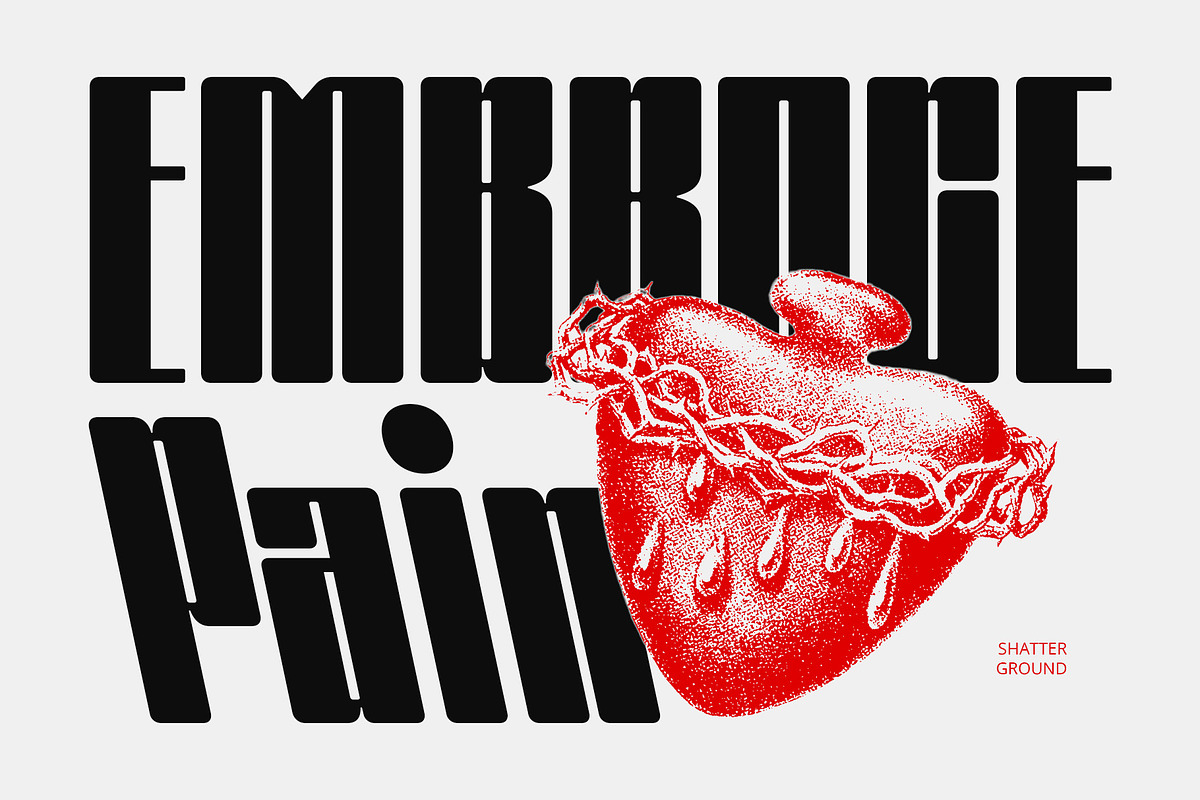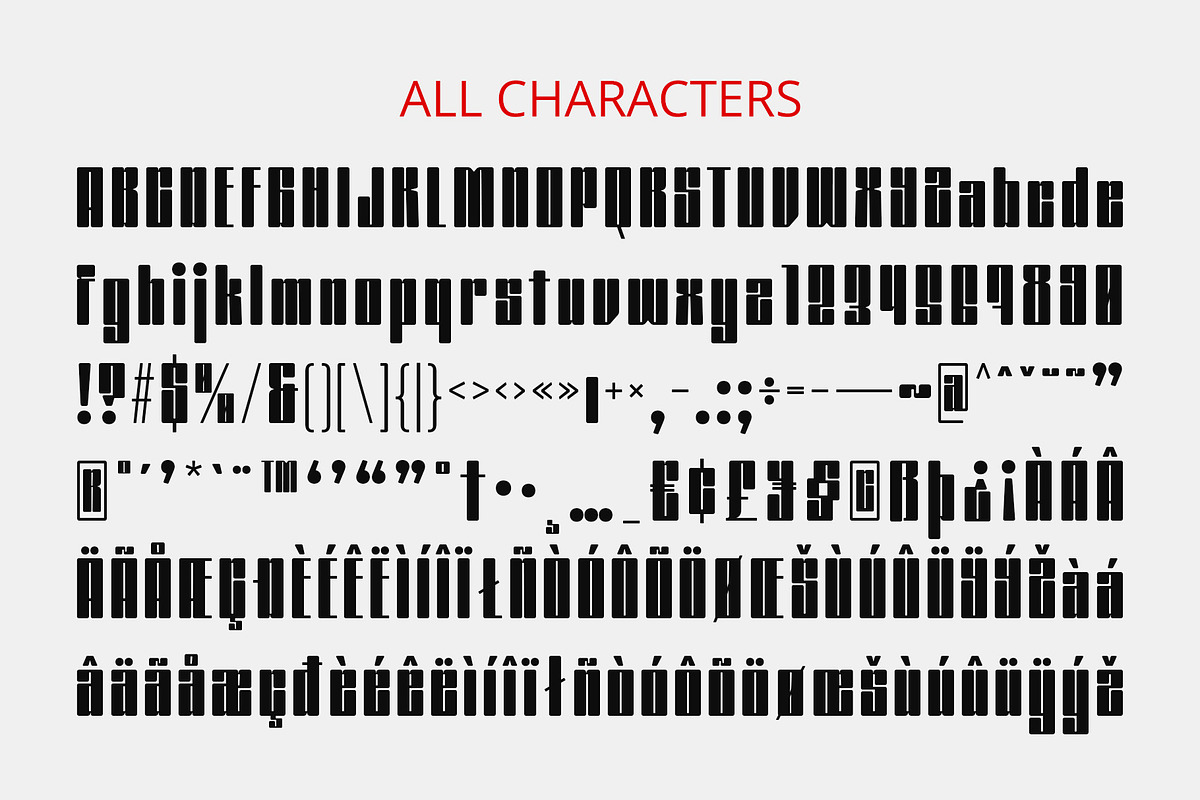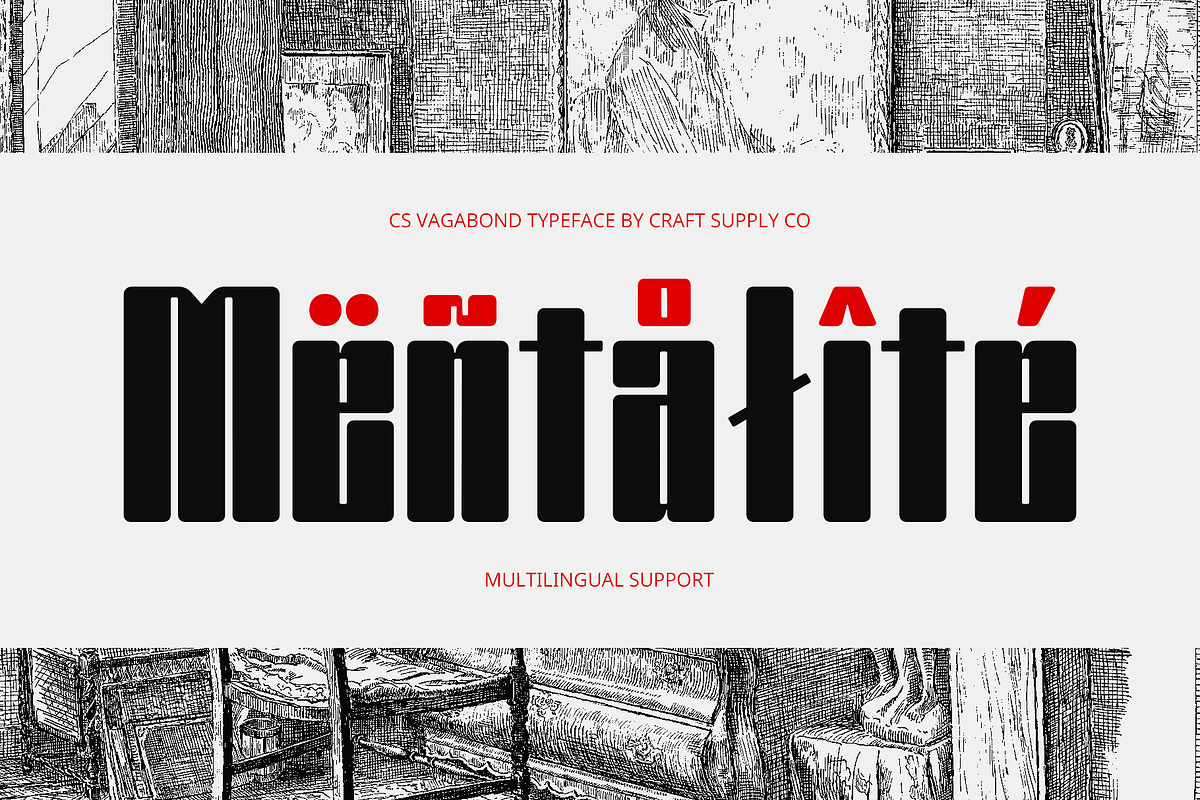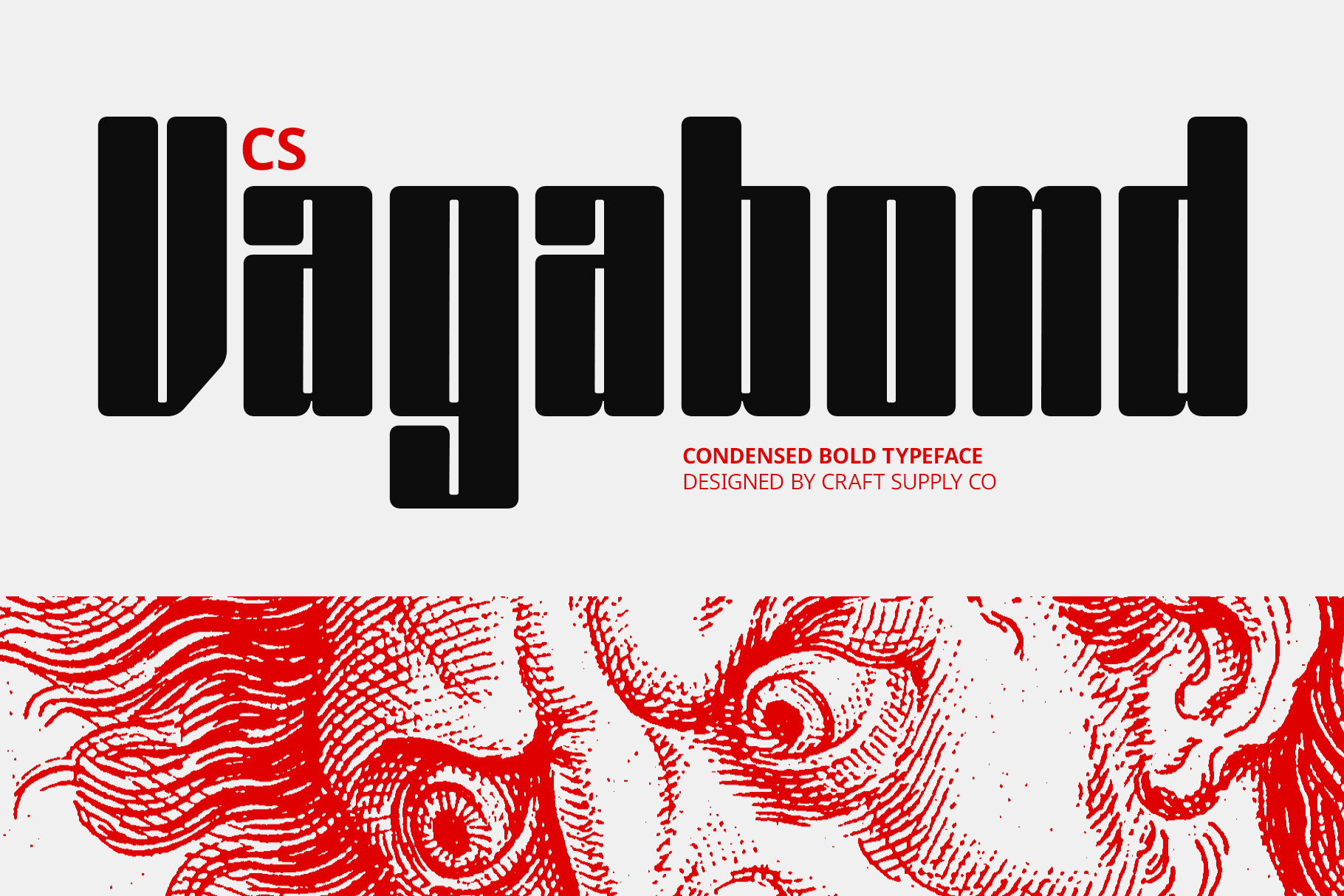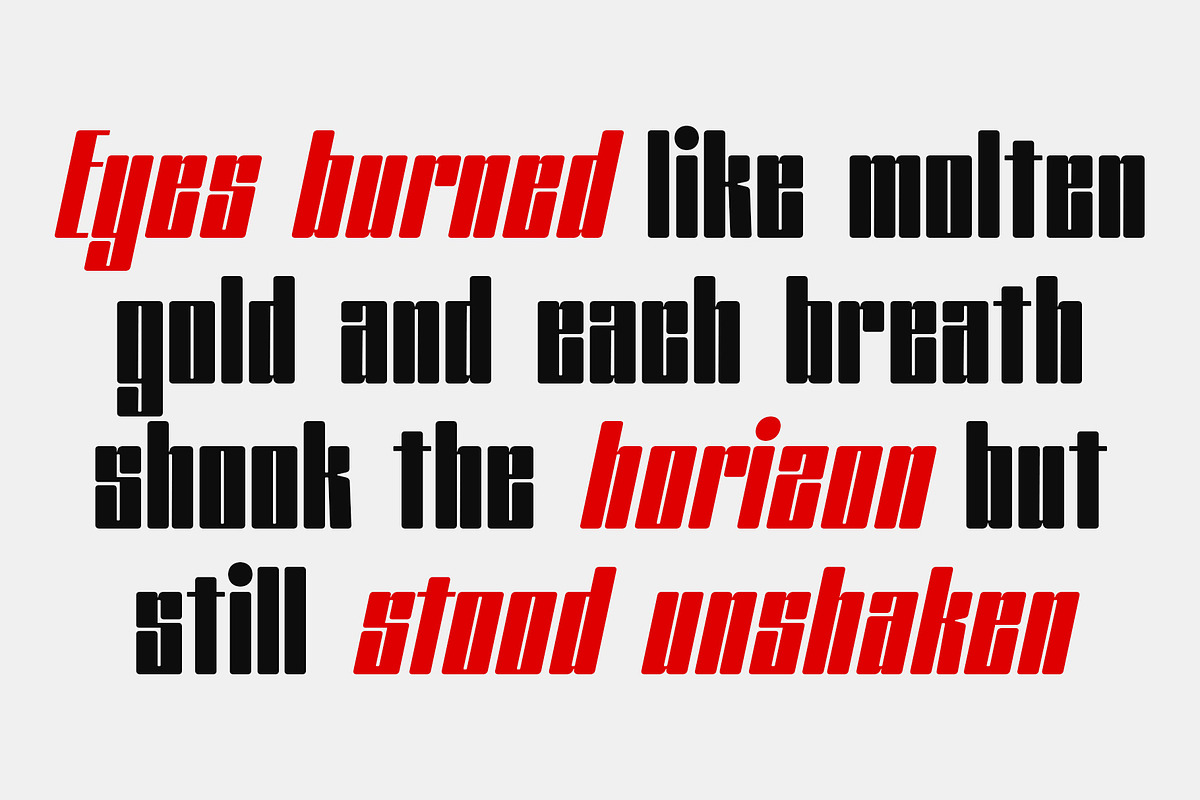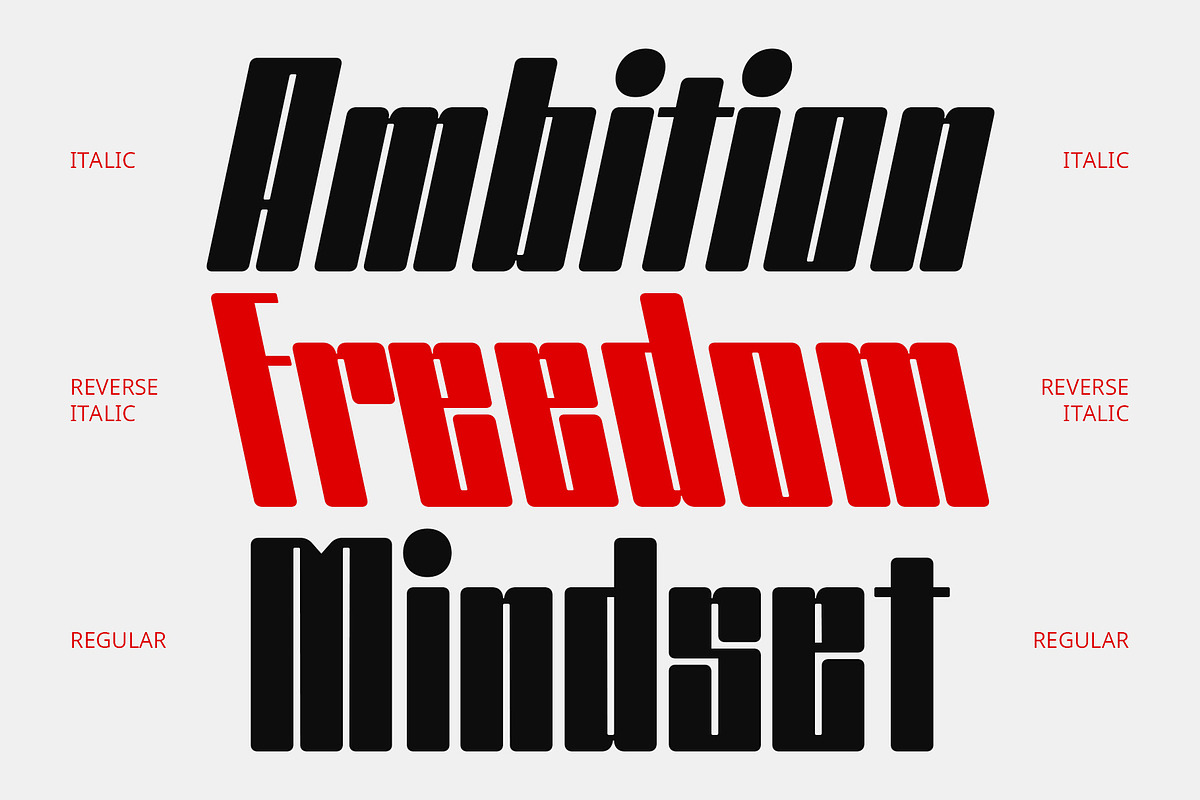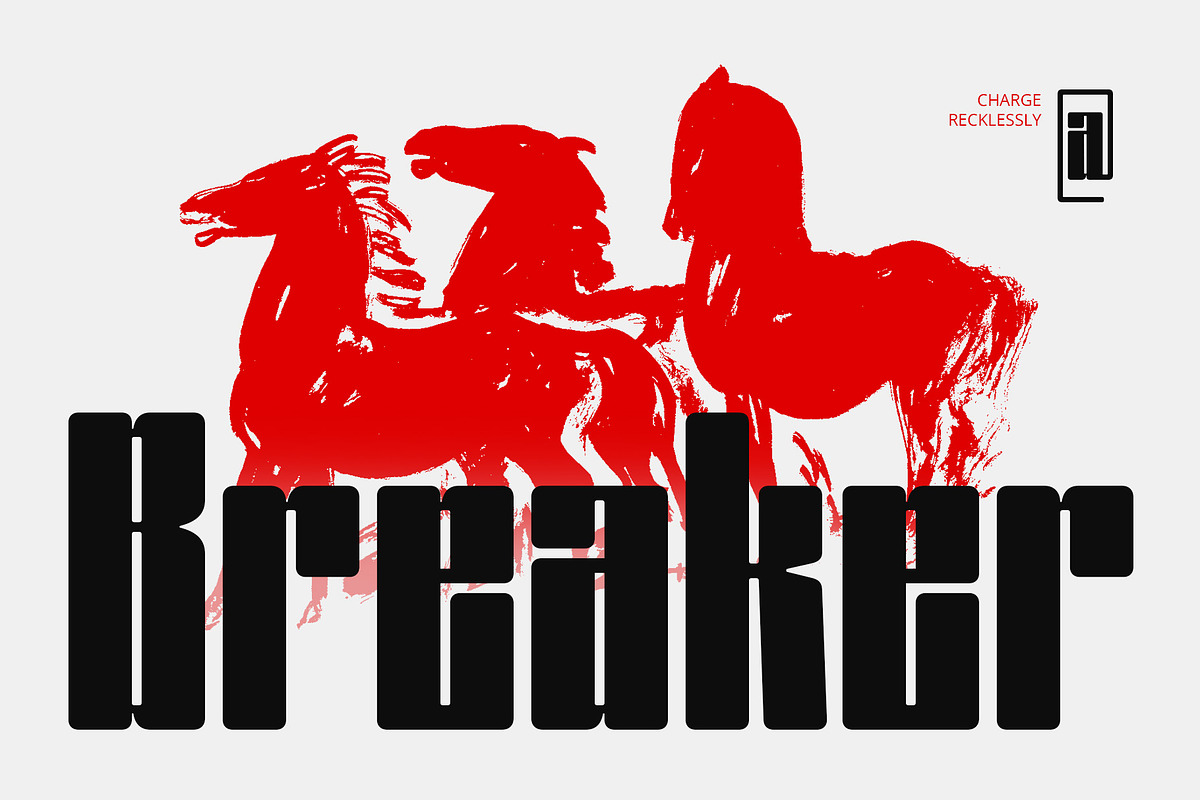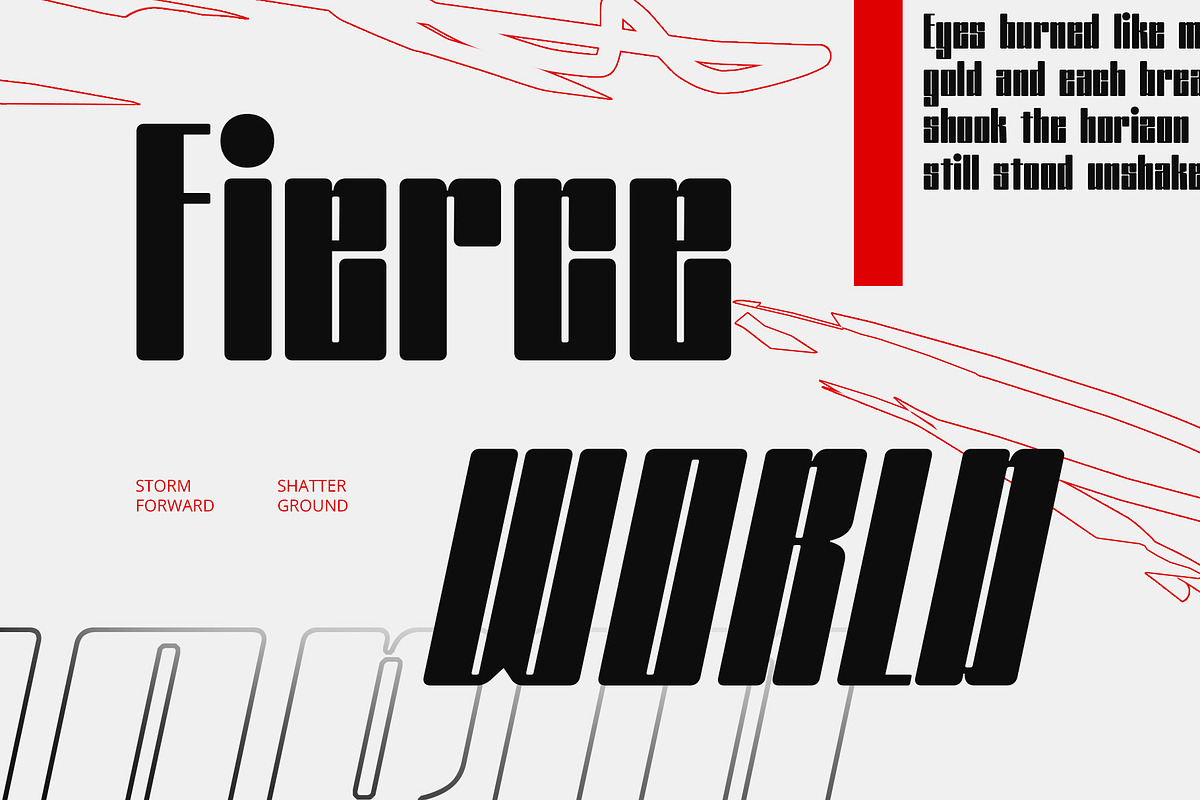
CS Vagabond – Condensed Font
CS Vagabond – Condensed Font: Bold Style, Compact Impact
Modern Bold Style with a Clean Edge CS Vagabond is a modern sans-serif font designed with bold weight and condensed proportions. Its clean, geometric structure exudes a fresh and contemporary aesthetic, making it ideal for today’s fast-moving design landscape. The font offers a sharp and direct visual presence while maintaining a sleek and minimal personality.
Slim, Compact, and Stylish The condensed form of CS Vagabond makes every letter feel purposeful and efficient. This slim structure allows more text to fit within limited space—without sacrificing legibility or visual balance. The compact width adds a distinctive look that feels both trendy and functional, suitable for layouts that demand clarity and edge.
Perfect for Bold Visual Communication CS Vagabond shines in display use—headlines, logos, posters, and digital banners. Its bold structure ensures your message stands out at a glance, while its condensed spacing helps you say more in less space. Whether you’re crafting a tech-forward campaign or a fashion-forward layout, CS Vagabond delivers with style and impact.
Versatile Across Digital and Print Media Thanks to its clarity and bold character, CS Vagabond works seamlessly across media platforms. From social media graphics and websites to magazine spreads and print ads, it ensures a cohesive and modern visual language wherever it appears.
- CS Vagabond Regular
- CS Vagabond Italic
- CS Vagabond Reverse Italic